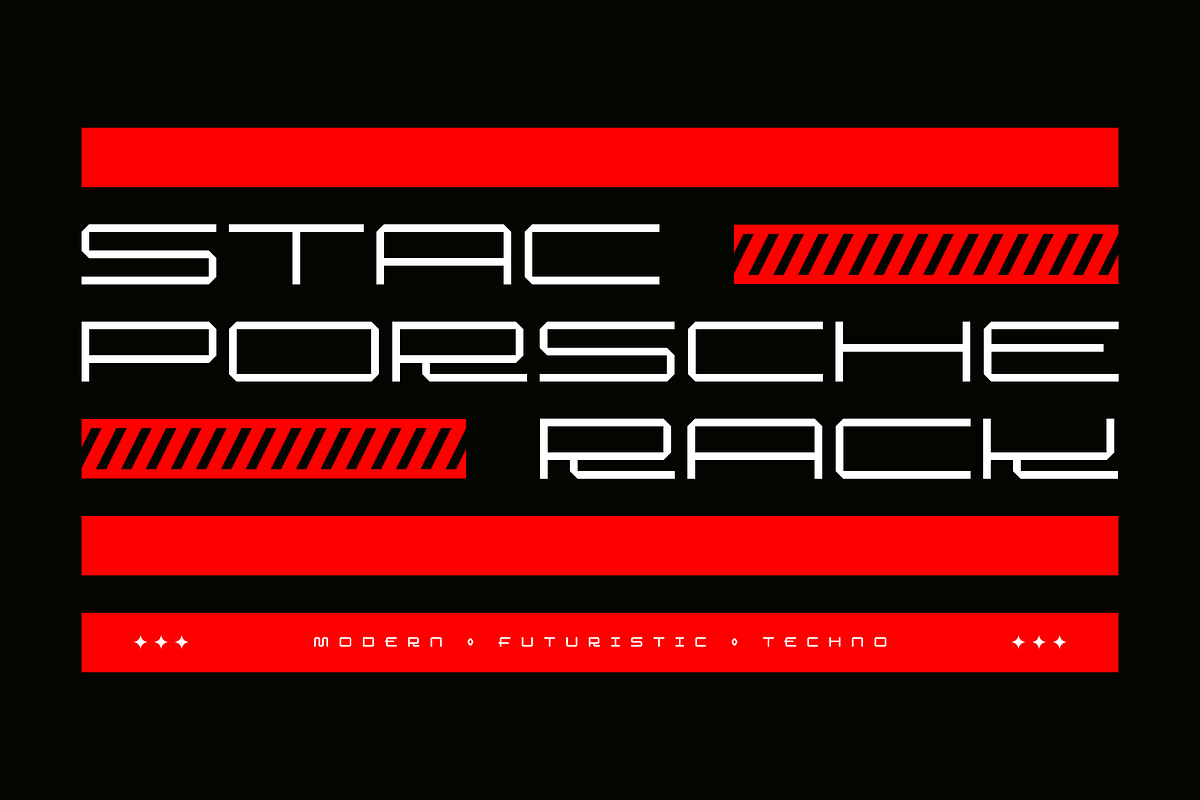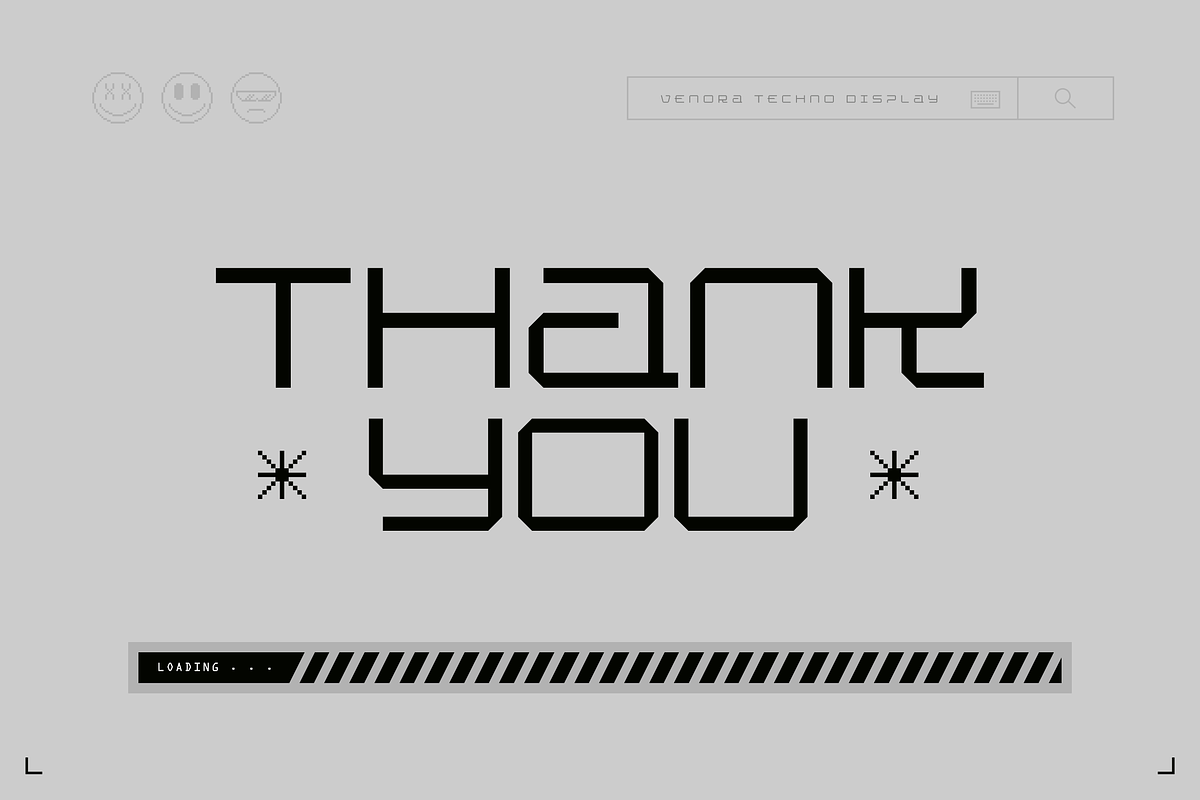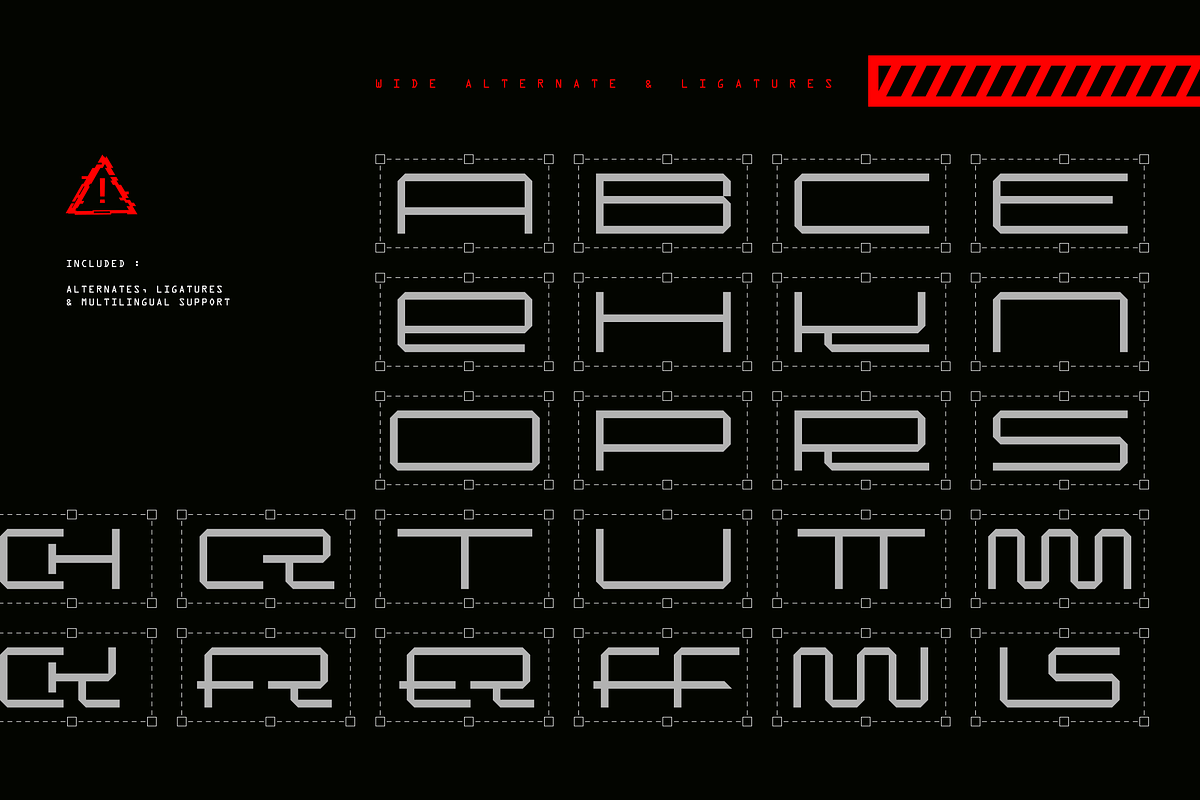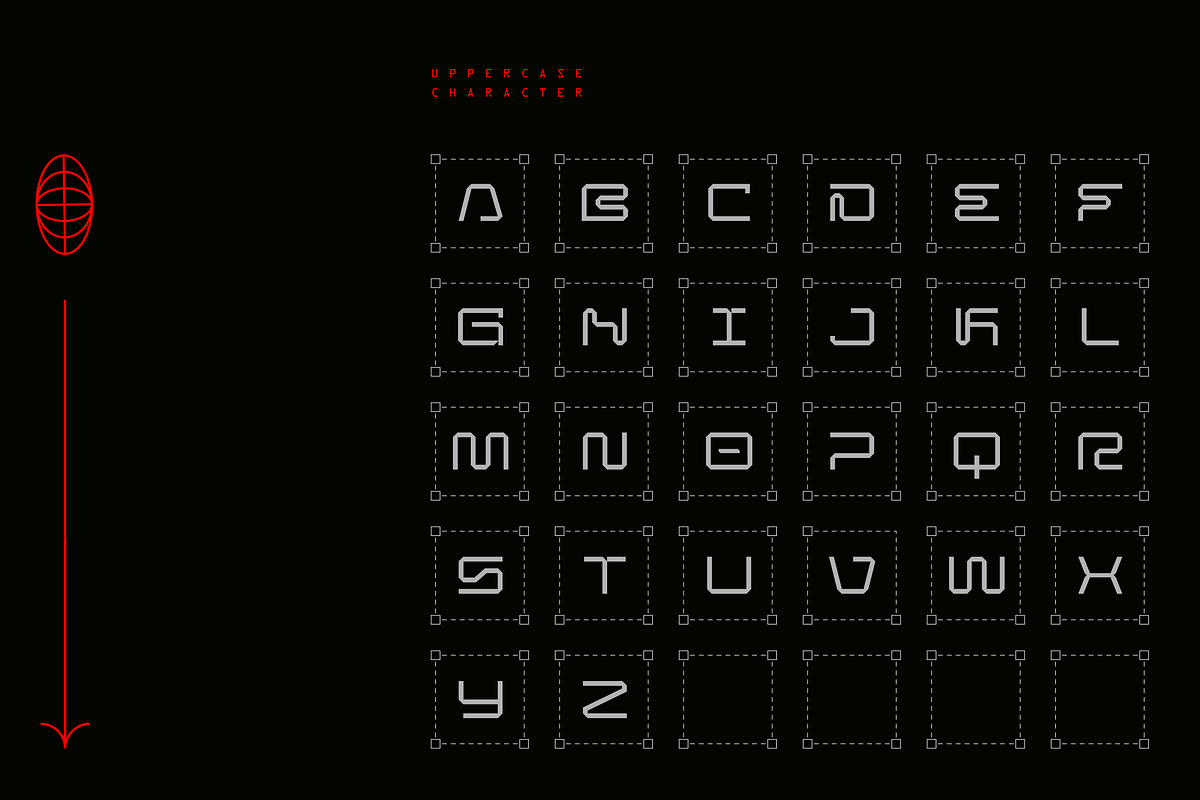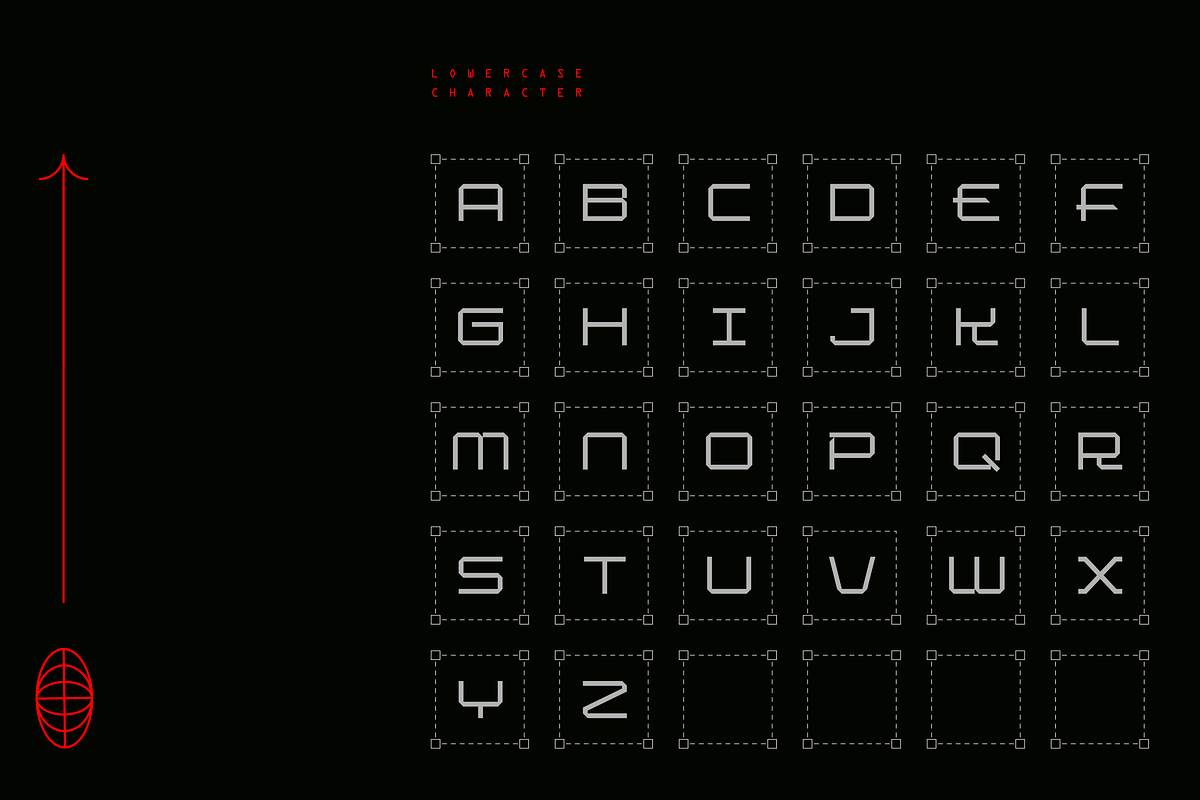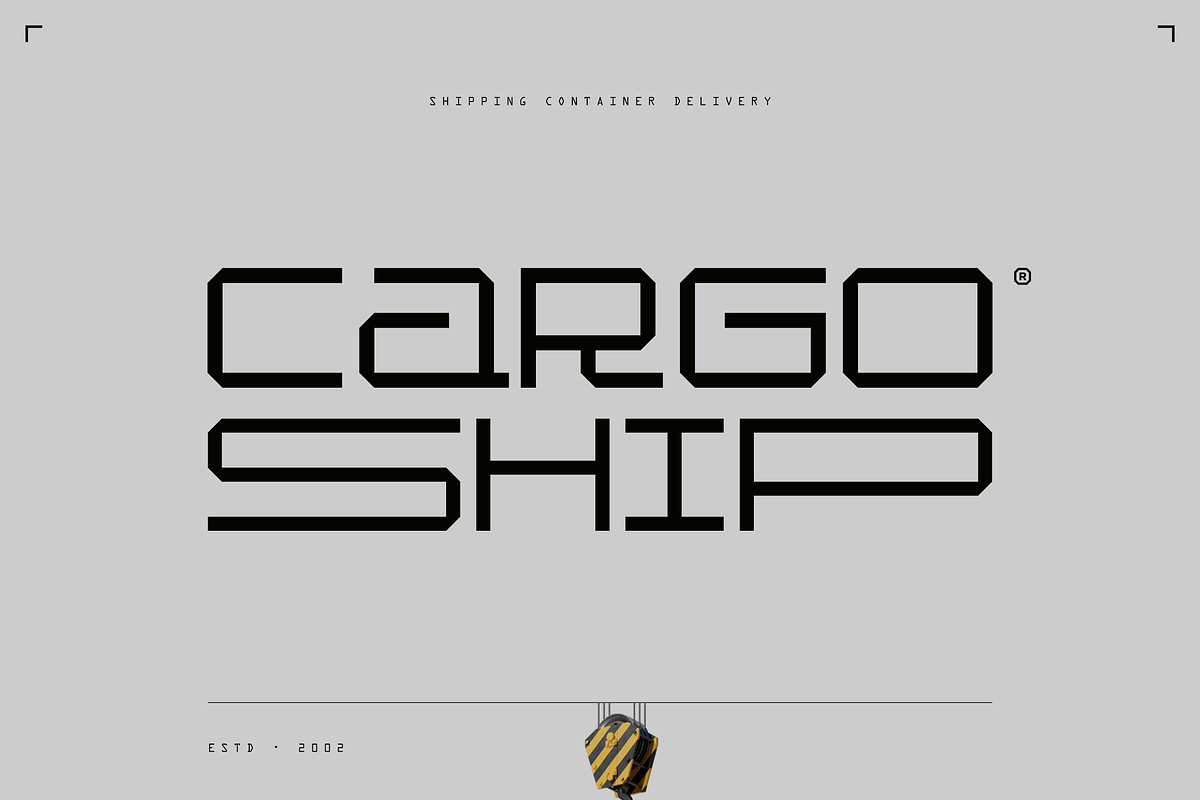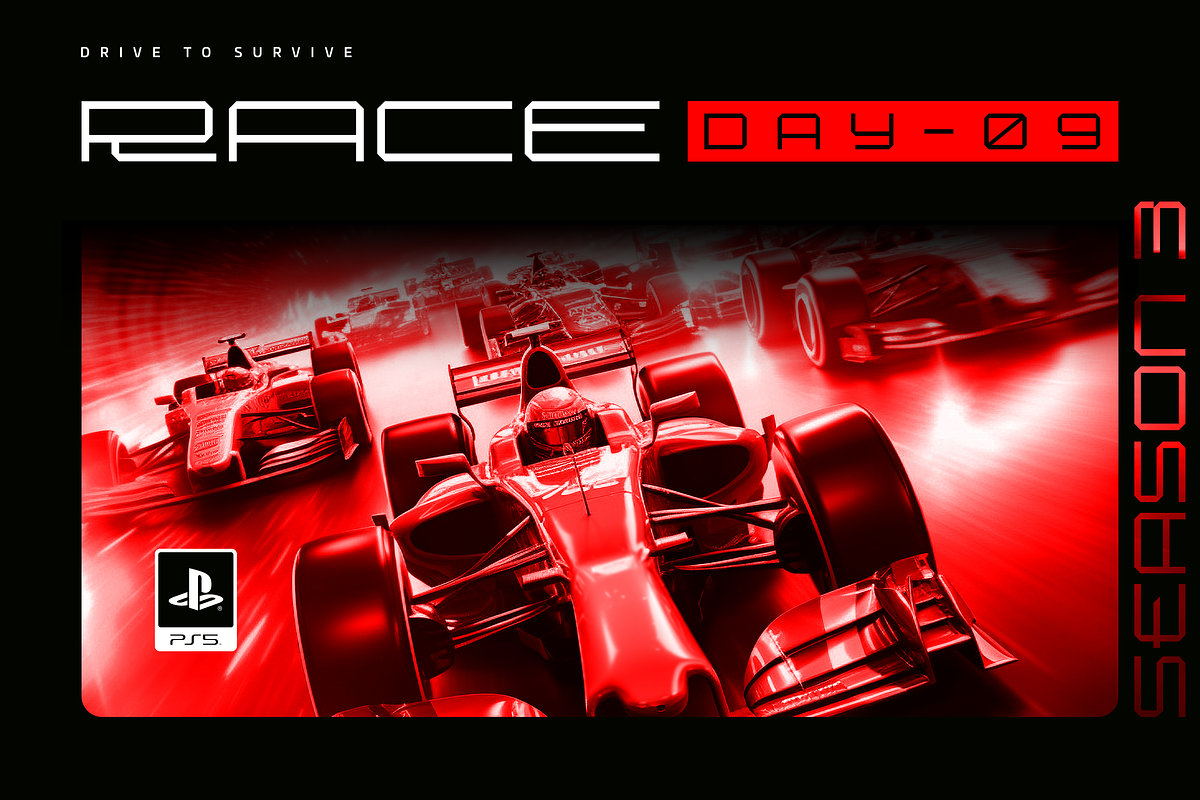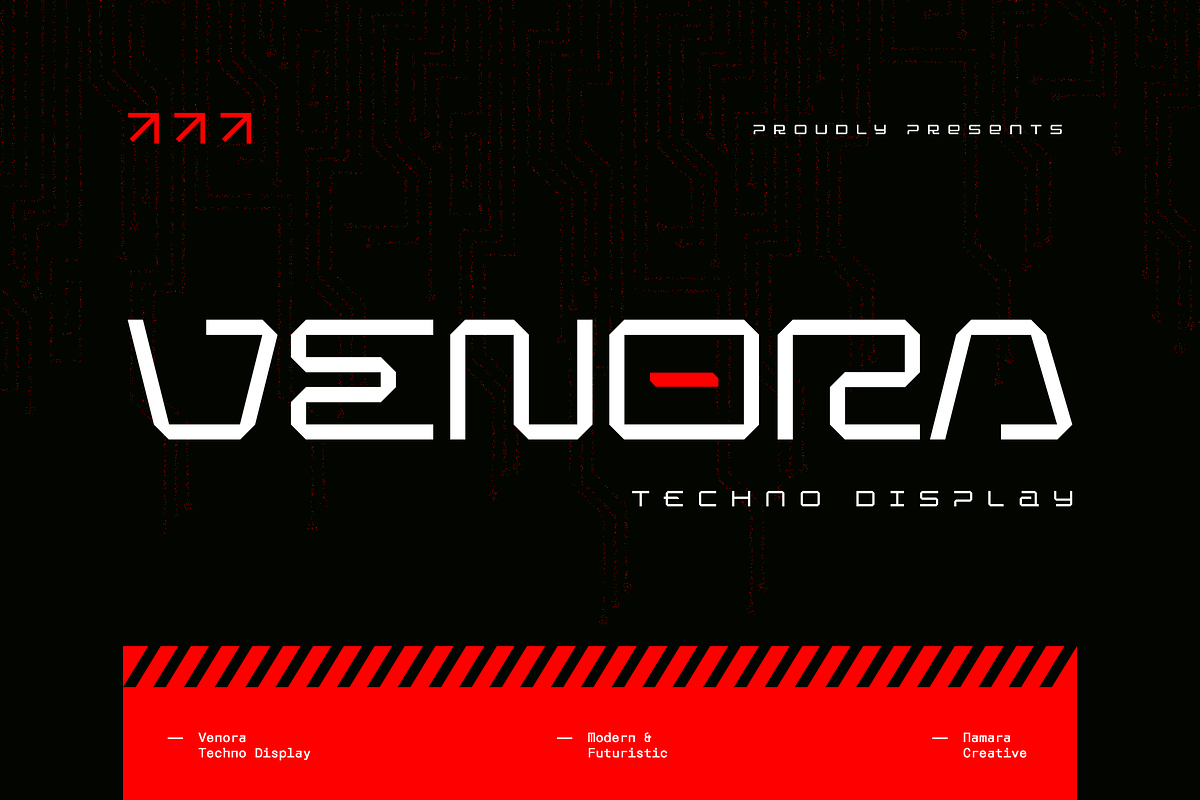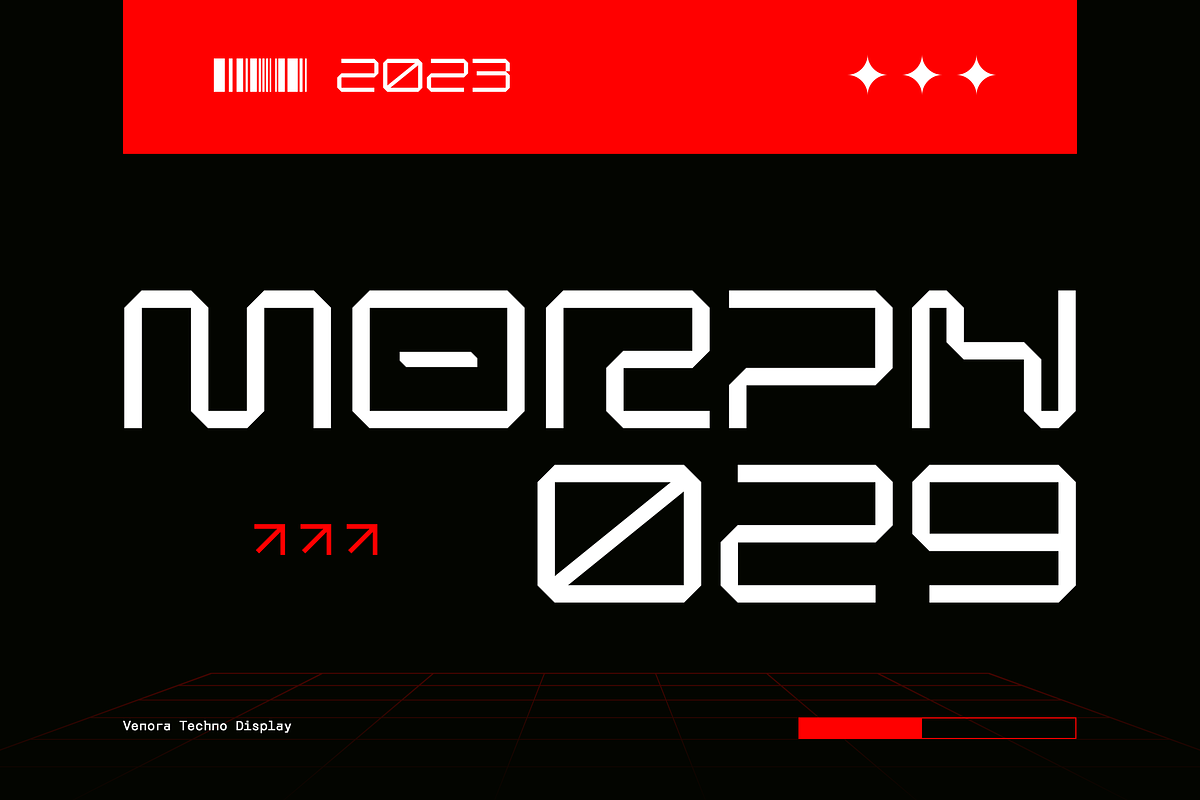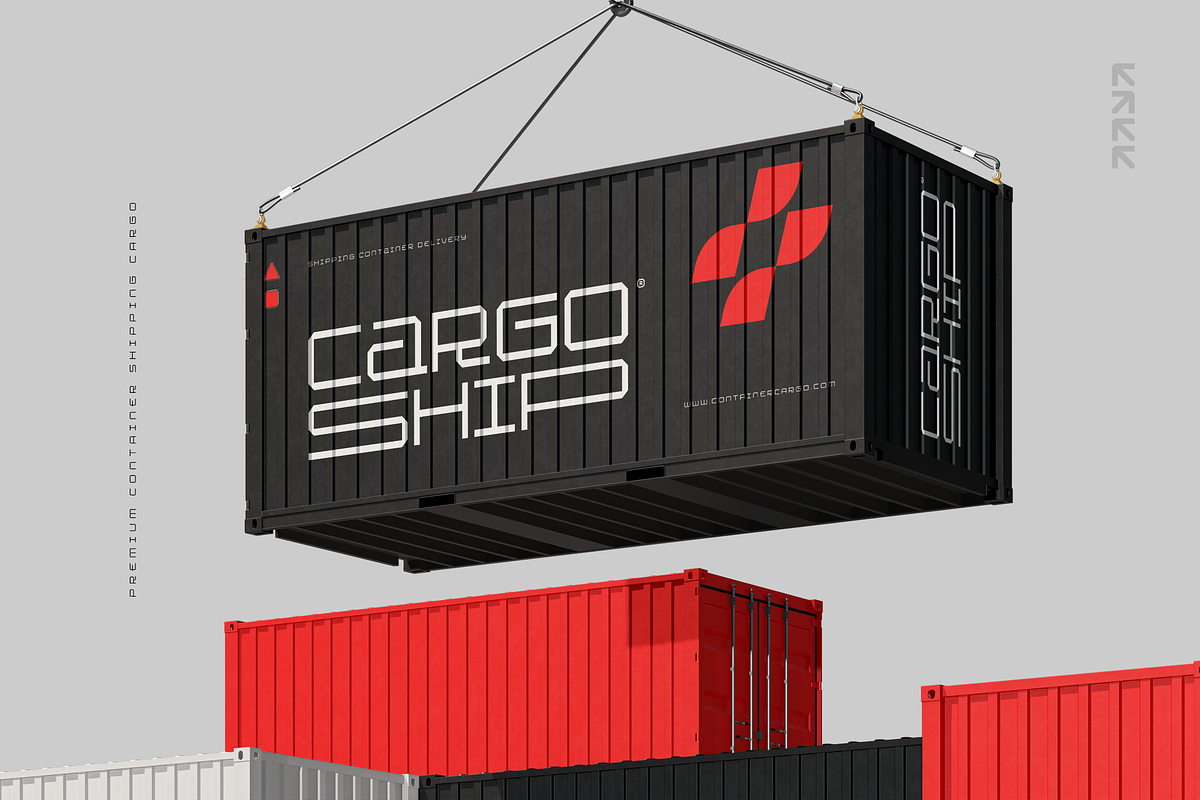
Venora - Extended Futuristic Display
A modern typeface with clean lines and sharp angles gives it a techno-futuristic look. Versatile and stylish choice for any design project that requires a high-tech edge. Ideal for use in digital design and printable materials such as Web Header, Logo, Business Card and Poster.
- Techno Cutting Edge with Futuristic Tech Looks.
- Alternates, Ligatures & Multilingual Support